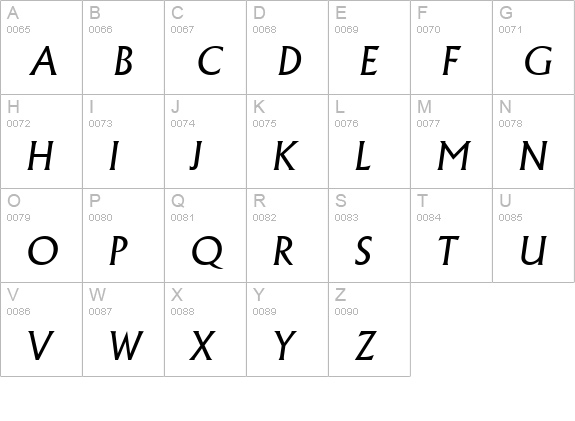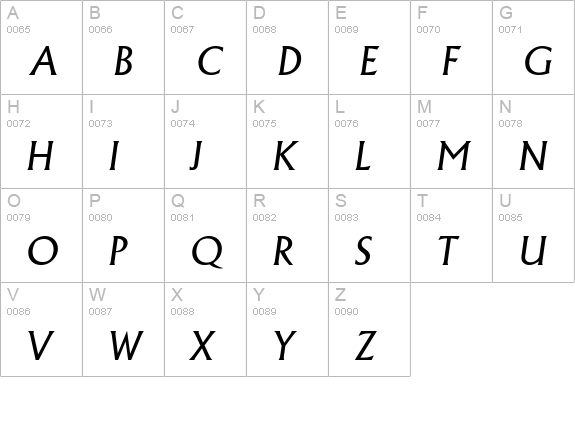
AdelonSerial-Italic is a distinctive, italic variant in the AdelonSerial typeface family \xE2\x80\x94 well suited to design and typography projects.
AdelonSerial-Italic font is a sleek and elegant typeface that exudes sophistication and style. Its slanted design adds a touch of modernity to any project, making it perfect for creating eye-catching headlines, logos, or branding materials. The italicized characters of AdelonSerial-Italic font bring a sense of fluidity and movement to your text, making it a versatile choice for both print and digital designs. And the best part? AdelonSerial-Italic font is completely free to download at FontsMarket.com! Whether you're a designer looking to add a unique flair to your creations or a business owner seeking a professional and polished look for your brand, this font is the perfect choice. Don't miss out on the opportunity to enhance your projects with the elegance and charm of AdelonSerial-Italic font – download it for free today at FontsMarket.com!